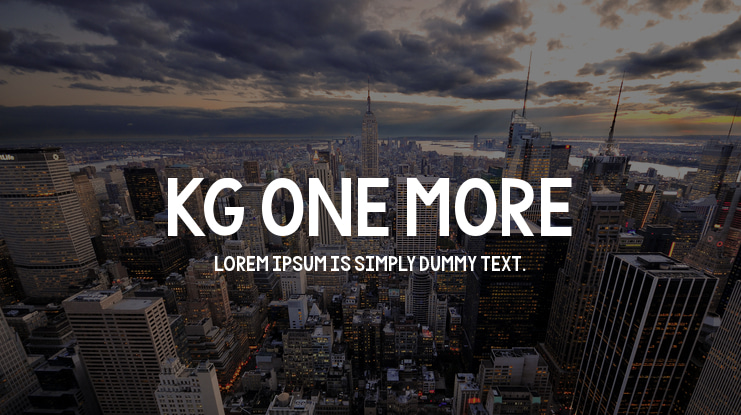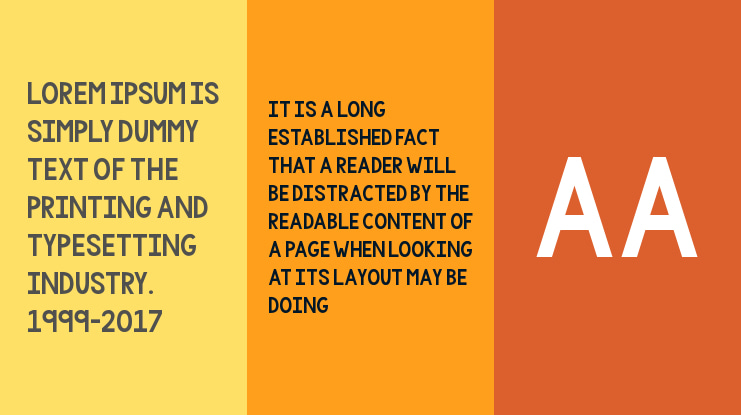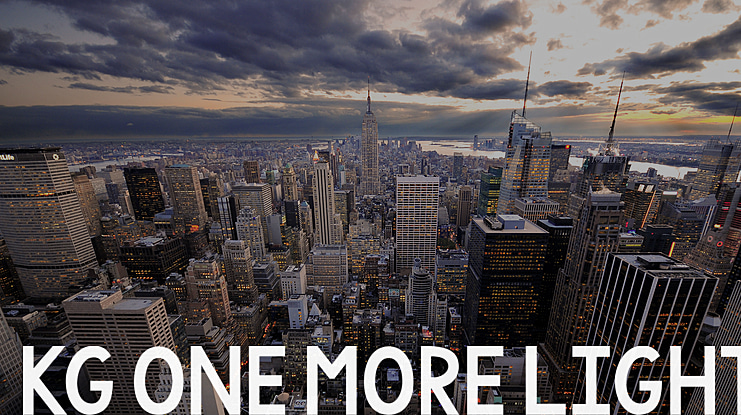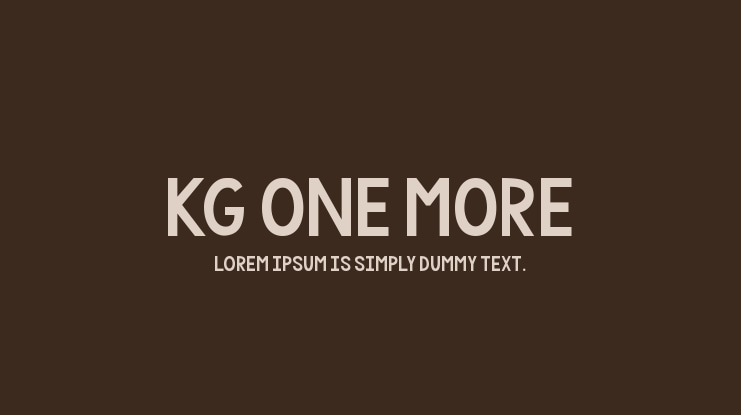
KG One More Font Family
Kimberly Geswein
This font was inspired by the life and legacy of Chester Bennington of Linkin Park. I've long been a fan of Linkin Park and his death is a reminder that we need to ask for help when we are in dark places. You matter. Your life matters. Call if you need help.
This font duo coordinates with KG Sorry Not Sorry and KG Let Her Go. I highly recommend using them in tandem.